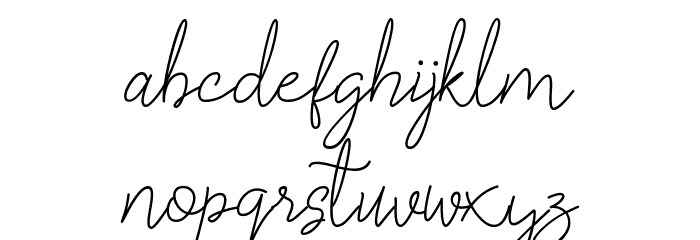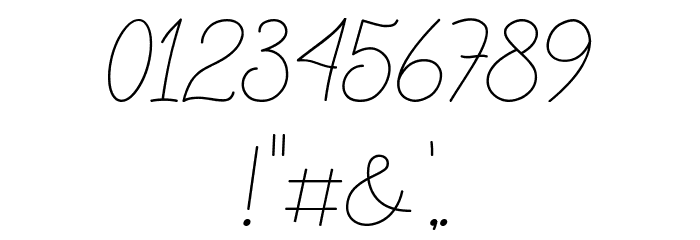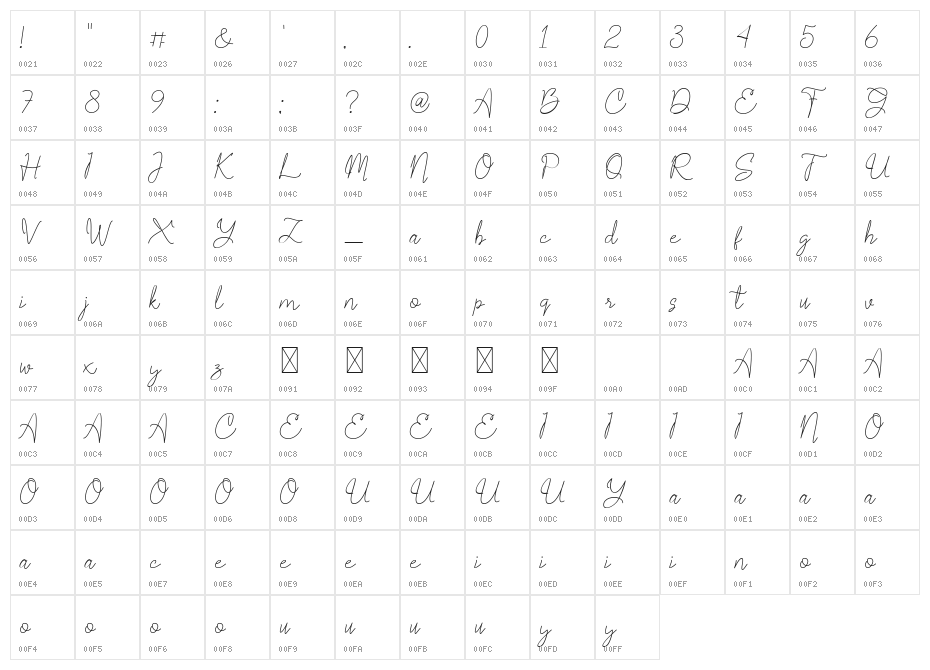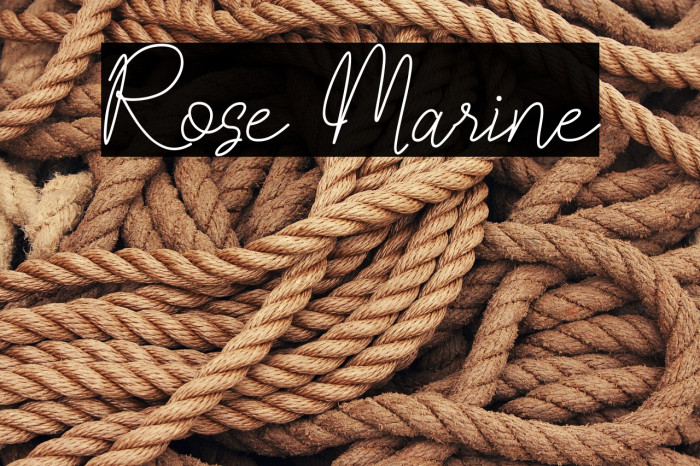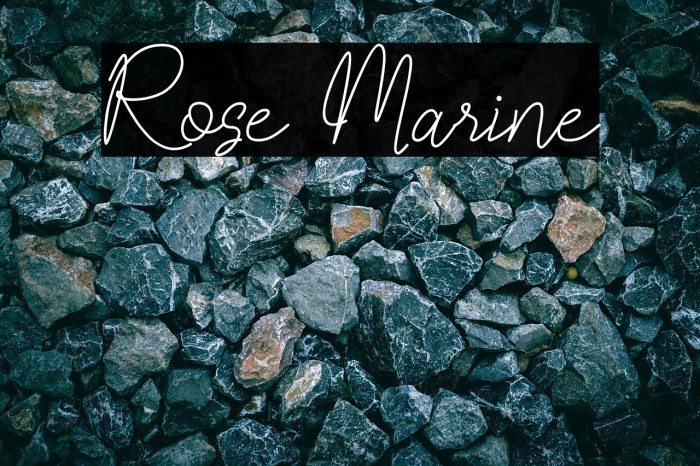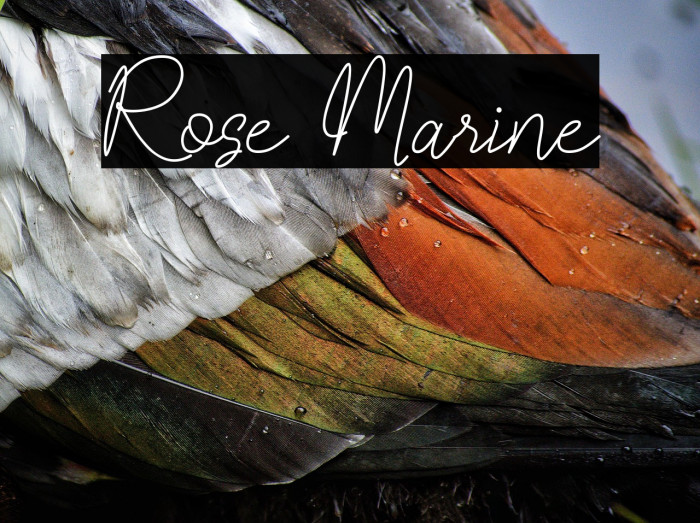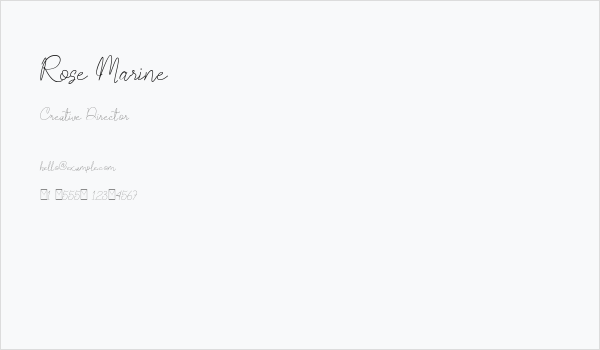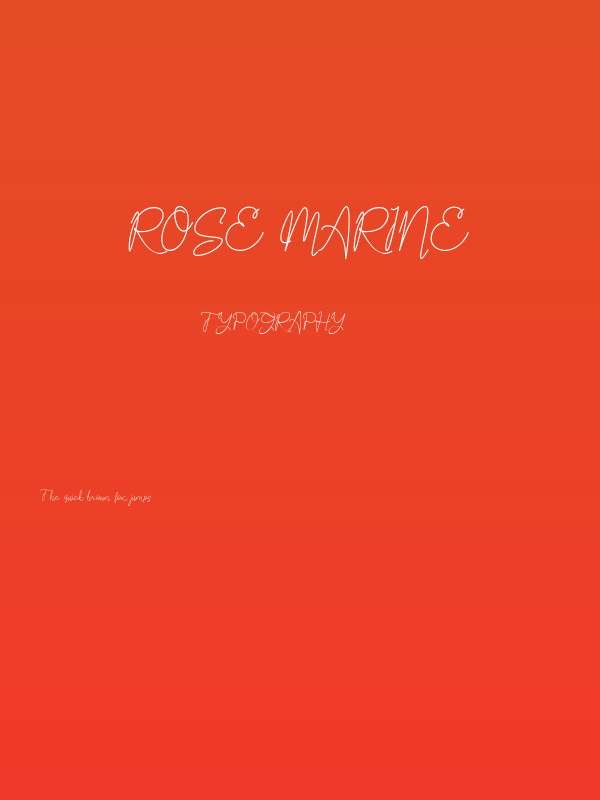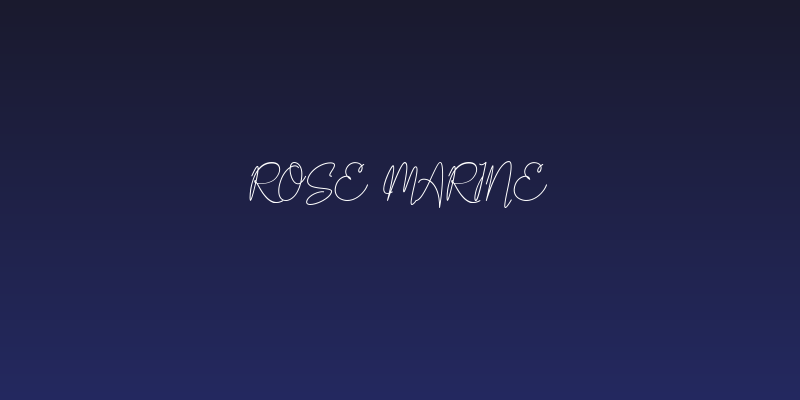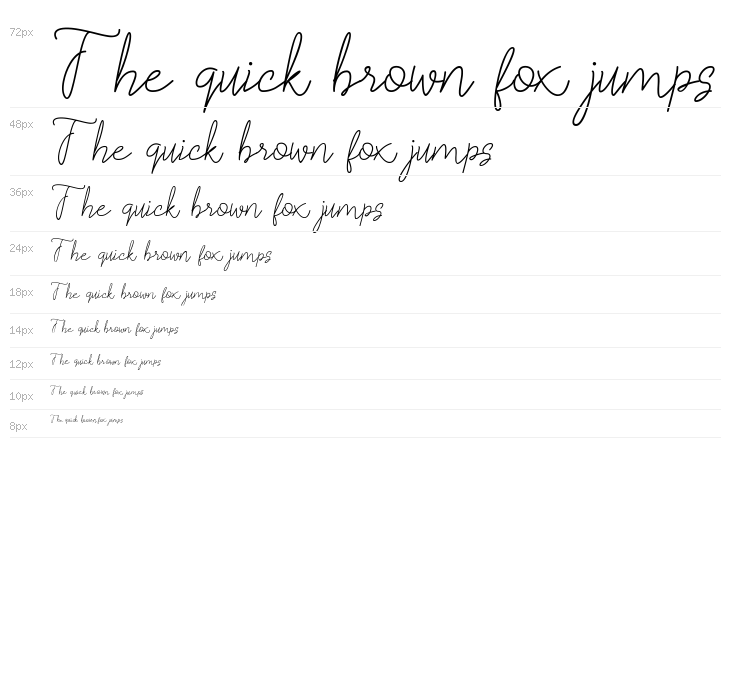
Rose Marine Font
This elegant script font features a fluid and graceful design, characterized by its smooth, flowing lines and delicate curves. Each letter connects seamlessly, creating a cohesive and harmonious appearance. The font exudes a sense of sophistication and charm, making it ideal for projects that require a touch of elegance. Its thin strokes and consistent weight give it a refined and polished look, while the slight slant adds a dynamic and lively feel. The numerals and special characters maintain the same stylistic elements, ensuring uniformity across all text elements.
A graceful and elegant script font with fluid, connected letters.
- Proposed Projects: Ideal for wedding invitations, elegant branding, personal stationery, and romantic quotes.
- Overall Style: Elegant
- Use Case: Logos, Invitations, Decorative text